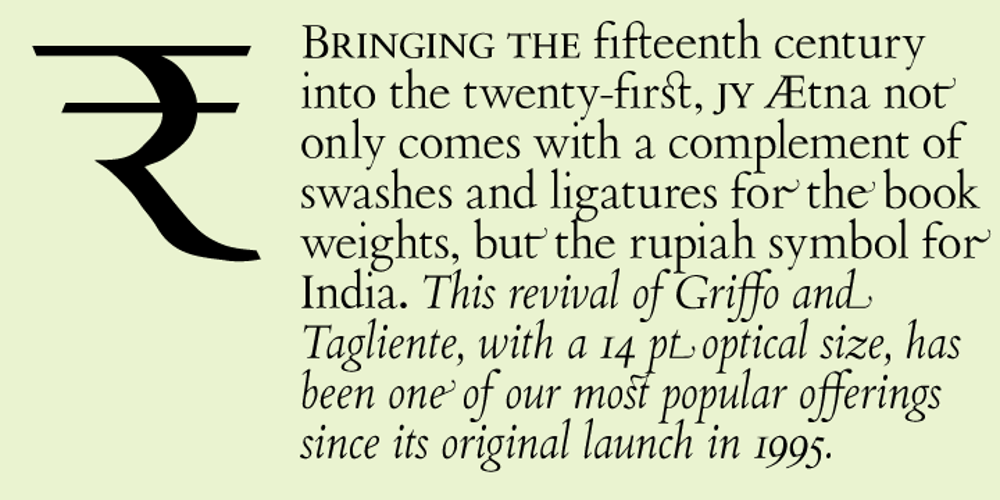
Aetna JY Pro Font Family was designed by Jack Yan and published by JY&A. Aetna JY Pro contains 6 styles and family package options. JY Ætna was designed originally by Francesco Griffo in 1495, and appeared in a book by Cardinal Bembo the following year. The typeface was re-created by Jack Yan in 1994, in time for its 500th anniversary. The original x-heights, quaint letters and other niceties have been restored. An italic complement, based on the design by Giovantonio Tagliente, has also been developed. JY Ætna has been one of JY&A Fonts’ more popular families over the years, with some typographers preferring its taller ascenders and descenders for headline work.